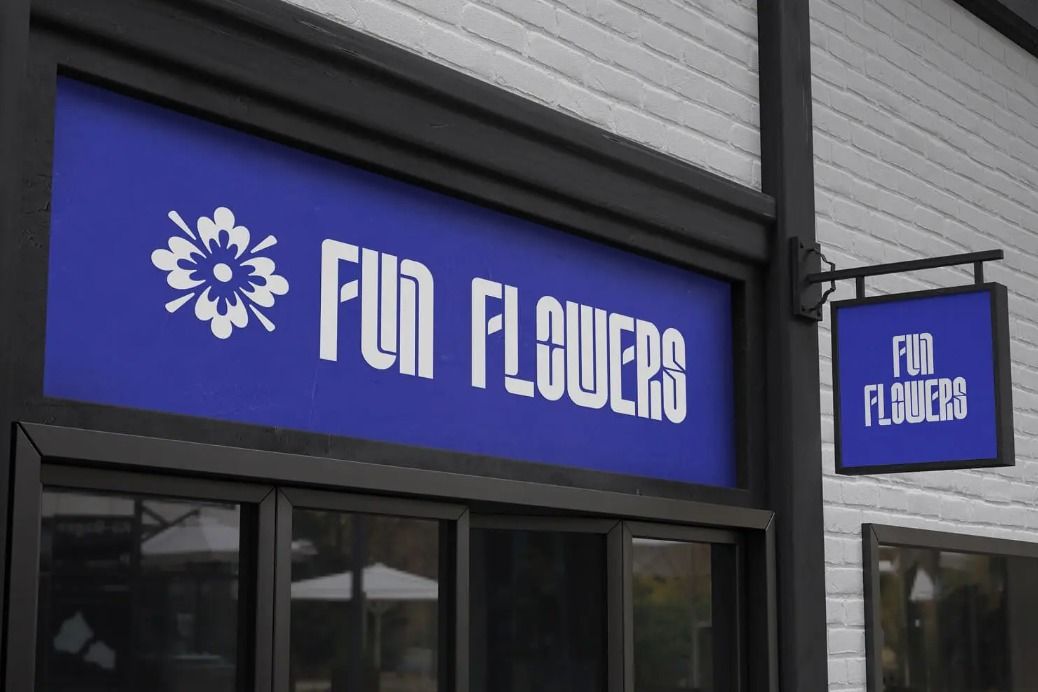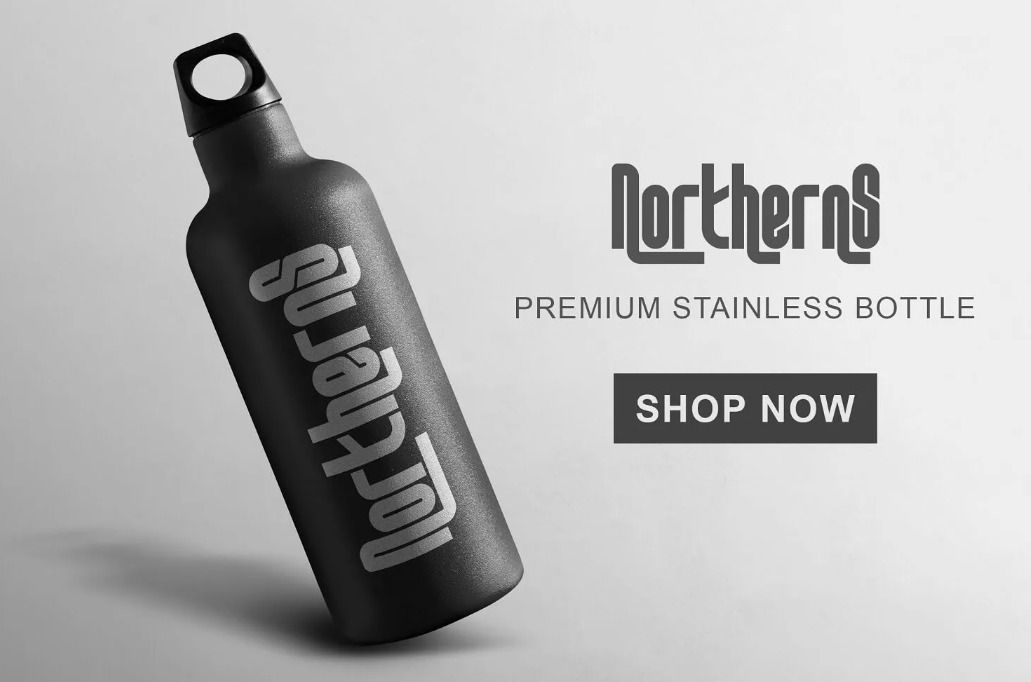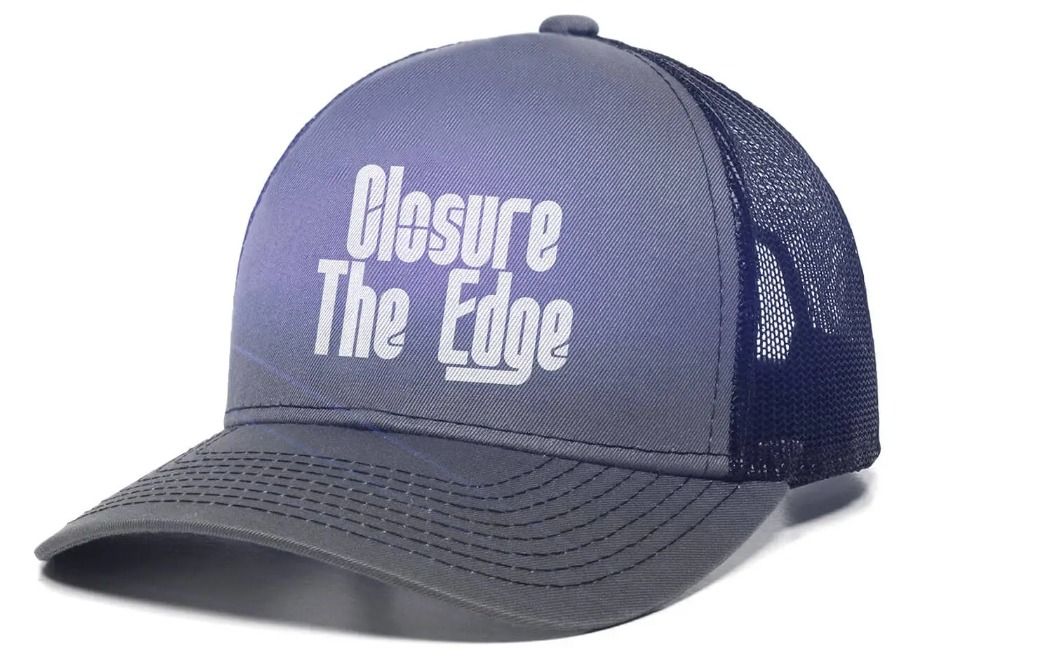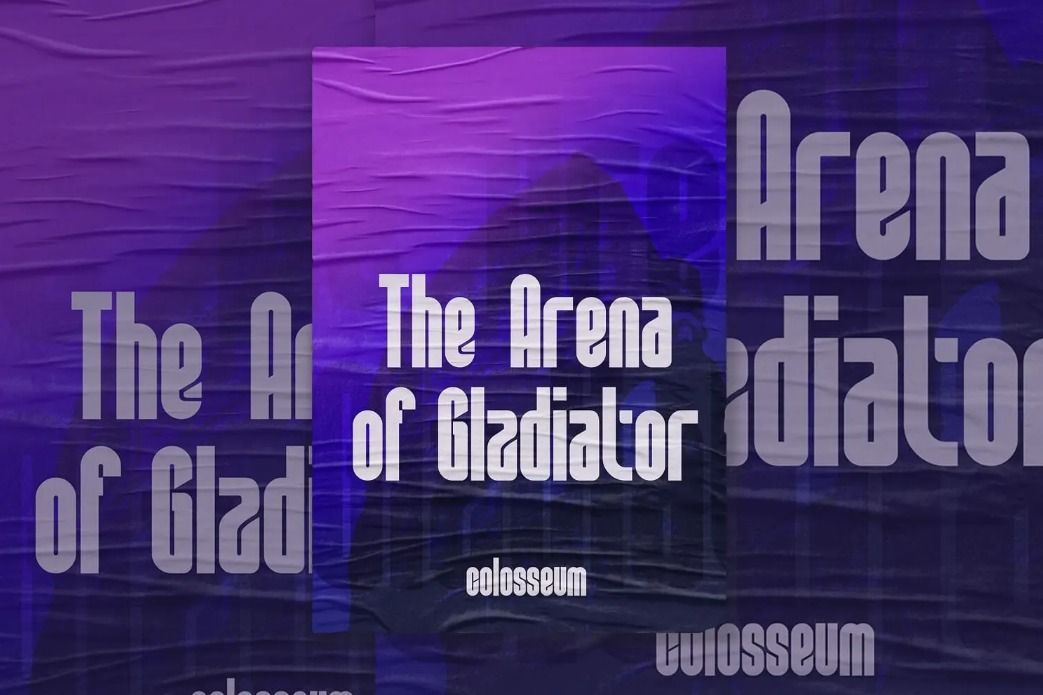
Unfold the Secret to Attention-Grabbing Design with Asteroid Font
Choosing an appropriate font for a design project is effective in grabbing attention and making it timeless. Its excellent readability makes Asteroid font worth using. In addition, the font also comes with a futuristic design. Moreover, the modern design and techno feel is a smart choice for commercial designs.
Let’s uncover how to optimize your designs utilizing this type of sans-serif modern font!
Introducing Asteroid Font and The Features
Stringlabs Creative Studio has released its latest font that you can use to present a bold, modern, and evergreen design. Despite its simple design, Asteroid fits for logos, brands, posters, book covers, magazine headlines, quotes, or even subtitles.
Given that Asteroid is crafted based on the sans-serif font, the display looks neat and simple. The characteristic of modified sans-serif fonts is that they do not use line strokes at each end of the letters. The slightly dense kerning does not hinder the perfect legibility of text using this font.
Asteroid typeface comes with comprehensive features so it won’t limit your creativity in creating enchanting designs. These features include uppercase, lowercase, numbers, symbols, and alternate characters.
Alternate characters will give a dramatic feel because there are vertical lines that go sideways to the right. You can find straight vertical lines with perfect length at the bottom or top of the ends of the letters. Additionally, you can choose the alternate characters based on your design needs.
6 Types of Design Projects that Asteroid Font Can Spice Up!
Coming with a bold design for each letter doesn’t make this font look inflexible. The reason is that each curve of the letter forms a rounded corner, giving it an ergonomic style, with a friendly yet classy vibe. Below are six common design project inspirations that implemented Asteroids into their designs.
1. Signboard
To attract people passing by to enter your shop, you need to make an eye-catching signboard. A significant consideration in creating a signboard is a simple and easy-to-read design. However, make sure the design is quirky yet readable and sparks the curiosity of those who see it.
Bold letters with a simple design without a lot of ornamentation will surely support the readability of the text even from quite a distance. The clean and neat appearance of the Asteroid typeface also gives a strong professional feel.
2. Product Design
If you run a merchandising business or product packaging design service, bear in mind that font selection makes a huge difference to the product’s design. Certainly, you need fonts that are readable with nice readability. But, you also need fonts with robust form and bold characters to make the product design more attractive.
The Asteroid font surely will transform your product’s design more exclusively with its modern letter form. Its quirkiness makes a remarkable statement and branding according to your brand’s character. You may combine the alternate styles with the lower cases to create a more striking text in the product design.
3. Magazine Headlines
If you are working on a technology-related magazine project, the Asteroid font is surely a great pair of key visuals. Font with a techno and futuristic design will take readers’ imaginations further. Just by combining appropriate uppercase and lowercase letters, the simplicity of the magazine headline design will look more remarkable.
Combining this font with a minimalist style typeface will help to represent better the persona of your magazine content.
4. Fashion
An evergreen business idea is the fashion industry. Choosing the right type of font will emphasize the fashion signature you release. You can explore the Asteroid font, which is equipped with many features to create text attached to hats, t-shirts, or even jackets.
Inserting alternate characters in the text you create will shift the monotony or mediocrity. Sideways vertical line strokes will give a stylish and fine touch without seeming excessive.
5. Book Cover
Have you ever heard the saying “Don’t judge a book by its cover”? This expression will be less appropriate if you work as a book cover designer. Ensure you create an intriguing design so people are intrigued to find out what’s inside the book.
Other than using irresistible words, also use fonts with impactful designs such as Asteroid typeface. The collaboration of the two will be an effective strategy that will lead customers to take a look at it.
6. Quotes
If you manage social media that posts meaningful and encouraging quotes, it’s best to use one font type so the feed display looks harmonious and neat. Upload your inspiring quotes using the Asteroid font to present an artful feed. Excellent readability will also be a plus point if you use this futuristic font.